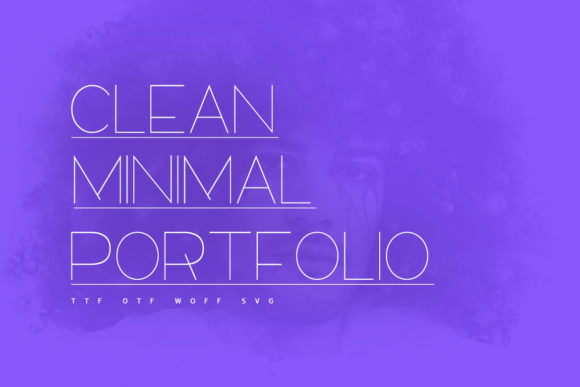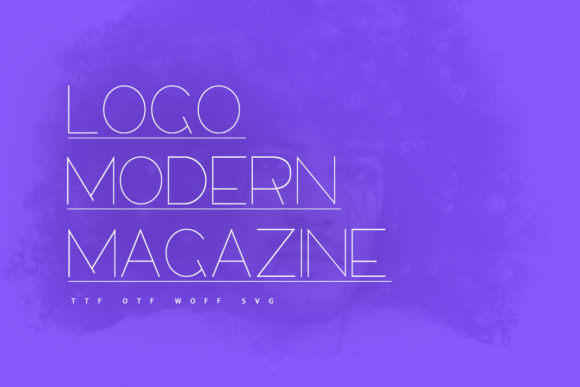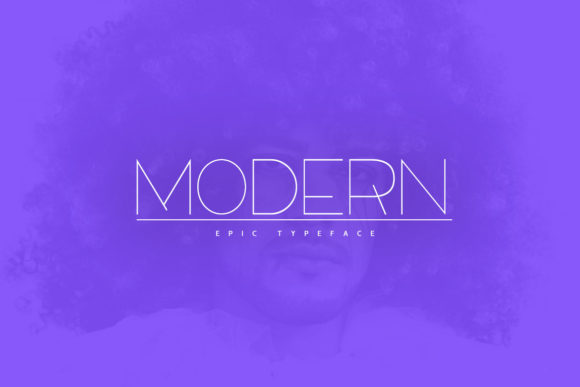
The Perfect Balance of Simplicity and Sophistication
As a designer, there’s nothing quite like the thrill of finding the perfect font to bring a project to life. It’s that moment when the words on the page start to feel like a work of art, and you know you’ve made a great choice. For many of us, that moment comes when we stumble upon a font that’s both modern and timeless – a font that says ‘simple’ but also ‘sophisticated’. For me, that font is the Galivar Font.
Galivar Font is a cool, modern, and simple sans serif font that’s perfect for writing web designs, business cards, or pretty much anything else that requires a minimalistic touch. Its clean lines and sleek aesthetic make it a valuable addition to any designer’s toolkit. With Galivar Font, you can create designs that are both visually appealing and easy to read.
Galivar Font Key Features
- Size: The font comes in 4 different font sizes, including Regular, Light, Bold, and Black, catering to various design requirements.
- Resolution: Galivar Font supports high-resolution displays, making it suitable for use in digital media, such as websites, mobile apps, and high-definition print materials.
- Unique Characteristic: The font features a unique blend of modern and vintage elements, creating a distinctive and eye-catching visual style that sets it apart from other sans-serif fonts.
- Language Support: Galivar Font supports a wide range of languages, including English, Spanish, French, German, Italian, and many others, making it an excellent choice for international design projects.
- Font Weight: With a range of font weights, including Hairline, Light, Regular, Bold, and Black, designers can achieve the perfect balance of legibility and visual impact in their designs.
Galivar Font Review
Overall, I think the Galivar Font has some great qualities, but also some areas for improvement.
- The Galivar Font has a unique and stylish aesthetic that’s perfect for creative projects.
- It’s highly legible, making it great for body text and long blocks of content.
- The font is highly customizable, with a wide range of weights and styles to choose from.
- It’s also relatively lightweight, which can help with page load times.
- The font’s unique style may not be to everyone’s taste, and it can feel overwhelming in certain contexts.
- It’s not particularly well-suited for headlines or titles, as it can be difficult to read in larger sizes.
- The font’s customization options can be overwhelming, and it’s easy to get lost in the various settings and options.
While the Galivar Font has some great qualities, it’s not a one-size-fits-all solution. It’s best suited for creative projects where a unique and stylish aesthetic is desired. With a bit of caution and careful planning, the Galivar Font can be a great addition to your design toolkit.
Galivar Font Practical Application Guide
Tips for Getting the Most Out of Galivar Font
For optimal results, use the Galivar font in conjunction with a bold or italic font for emphasis. Experiment with different font sizes and line spacings to achieve the desired visual effect.
The Galivar font is ideal for use in creative and artistic projects, such as graphic design, illustration, and typography-based art. It is also suitable for use in branding and marketing materials, such as logos, business cards, and brochures.